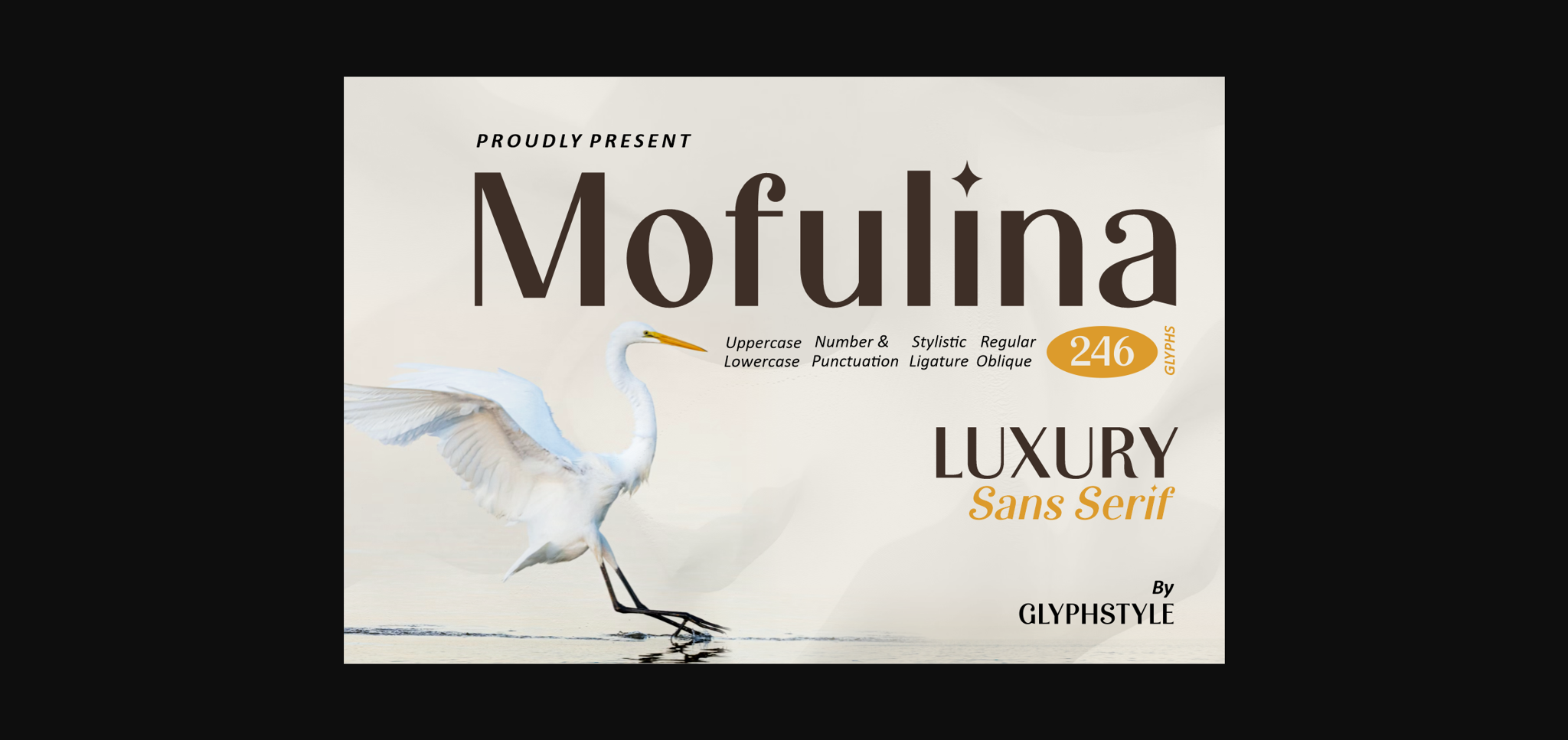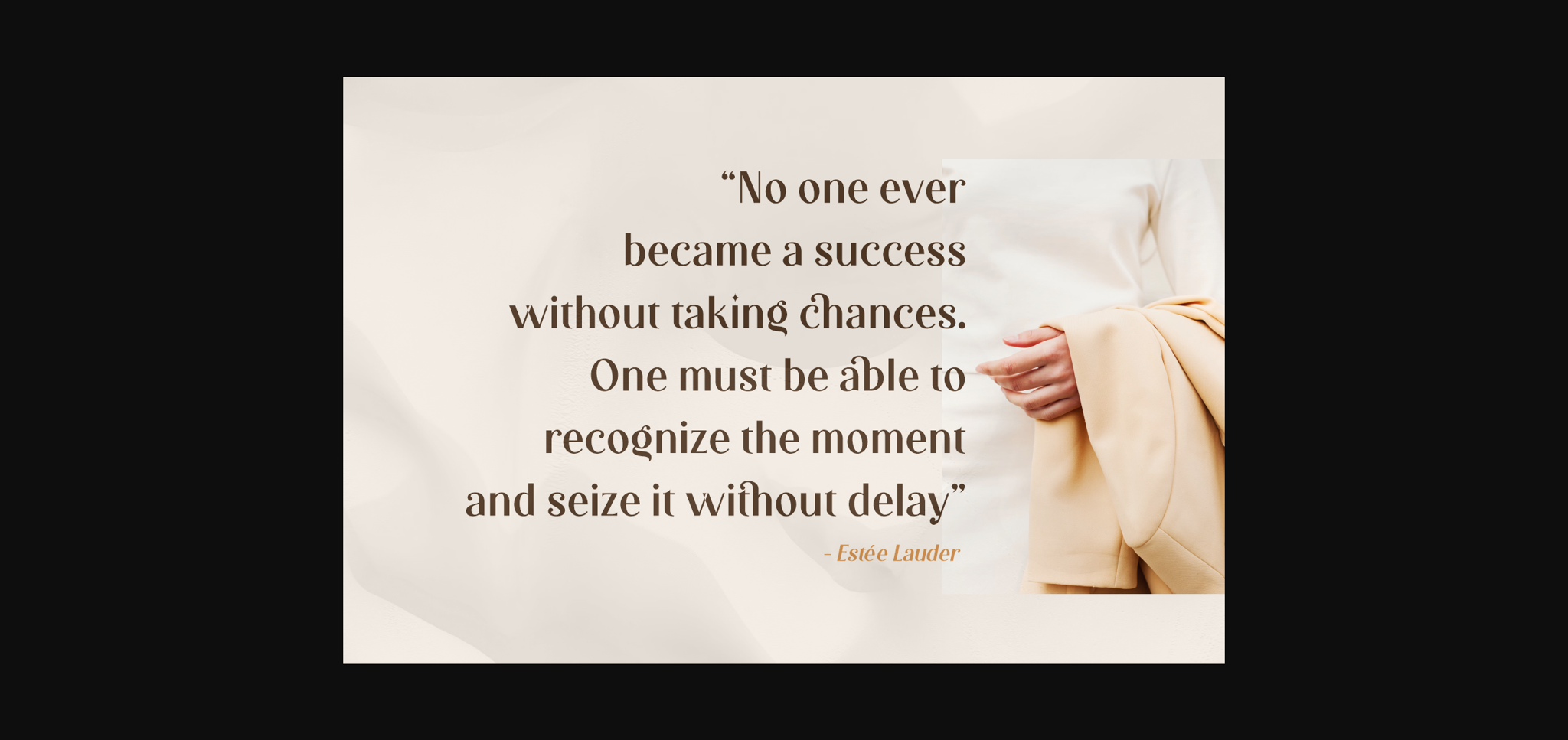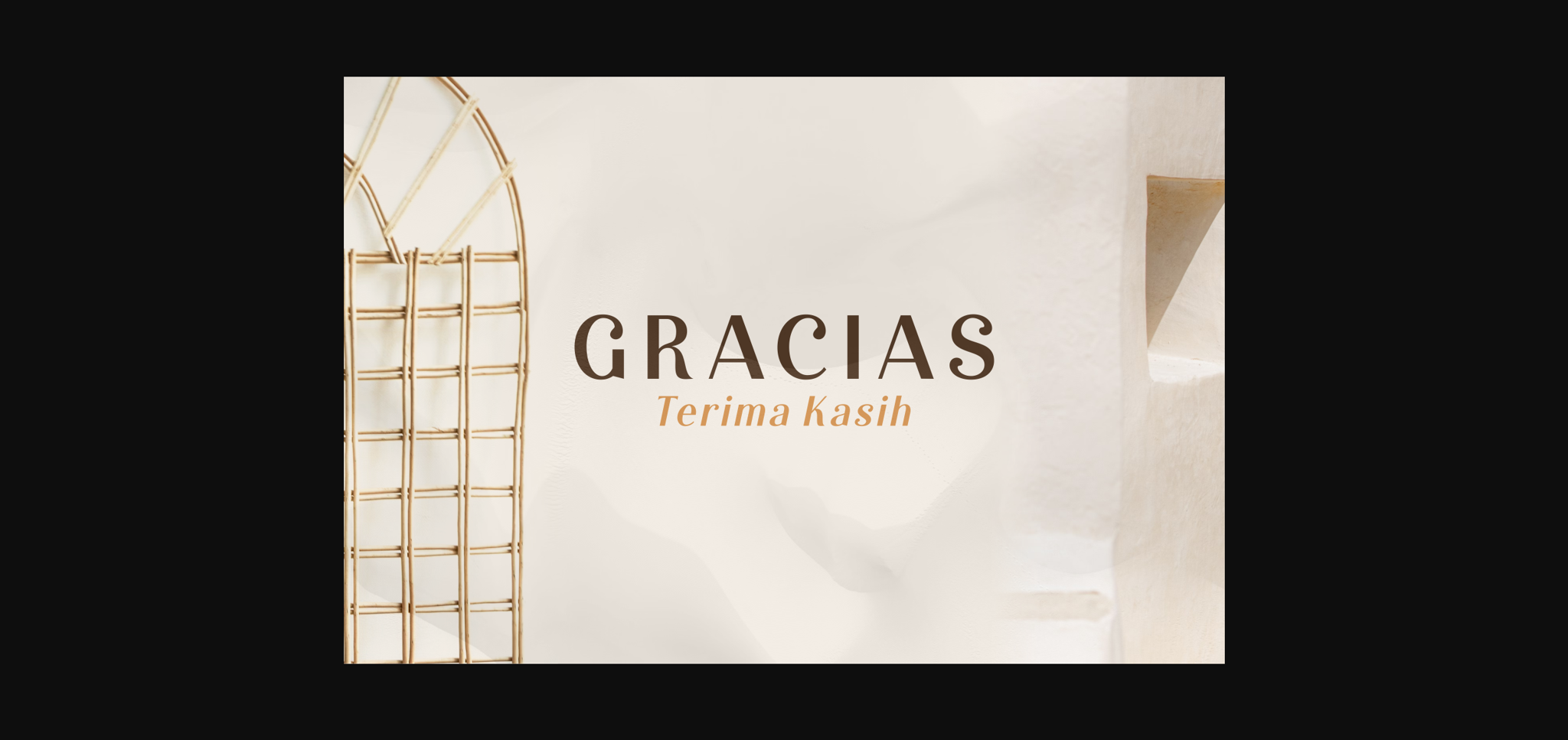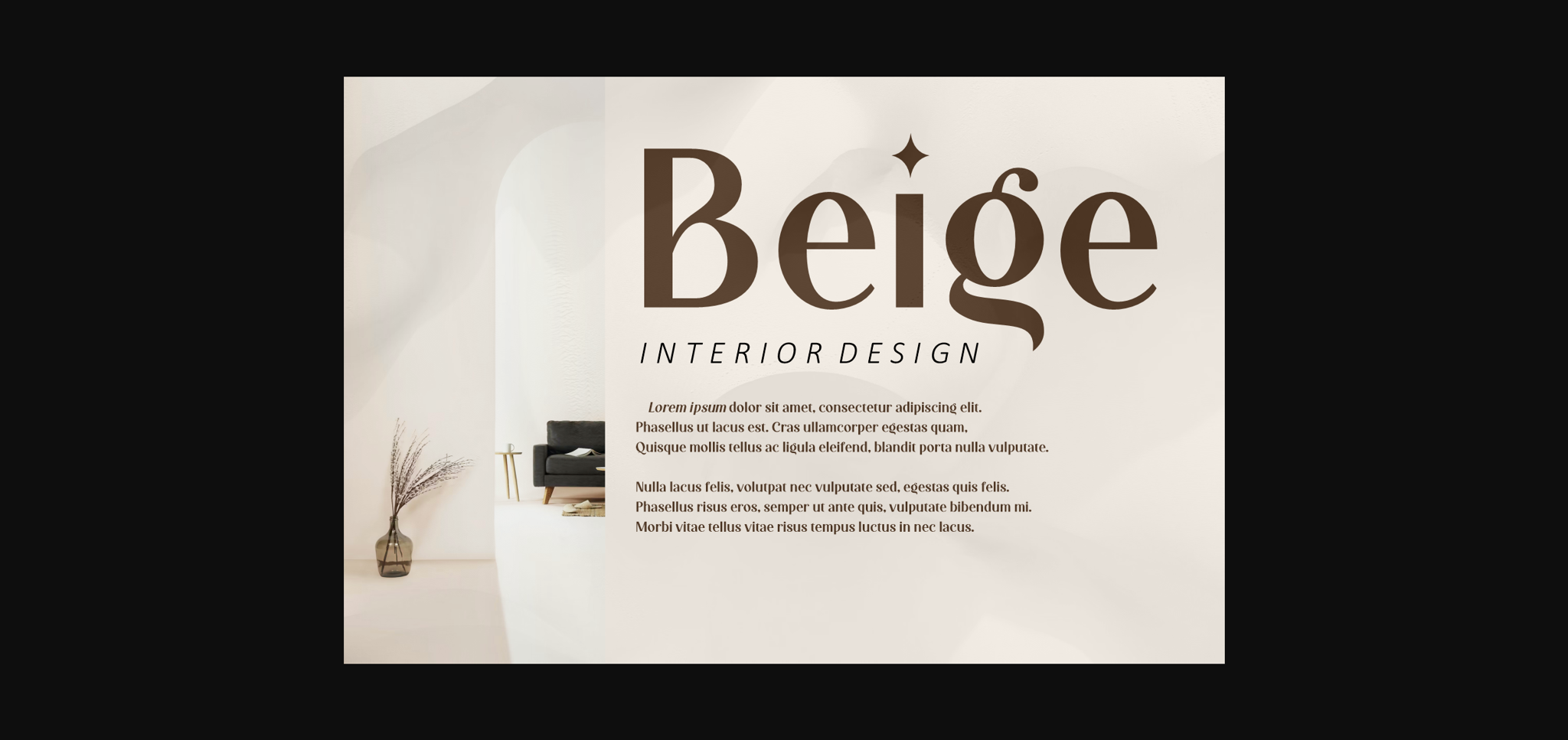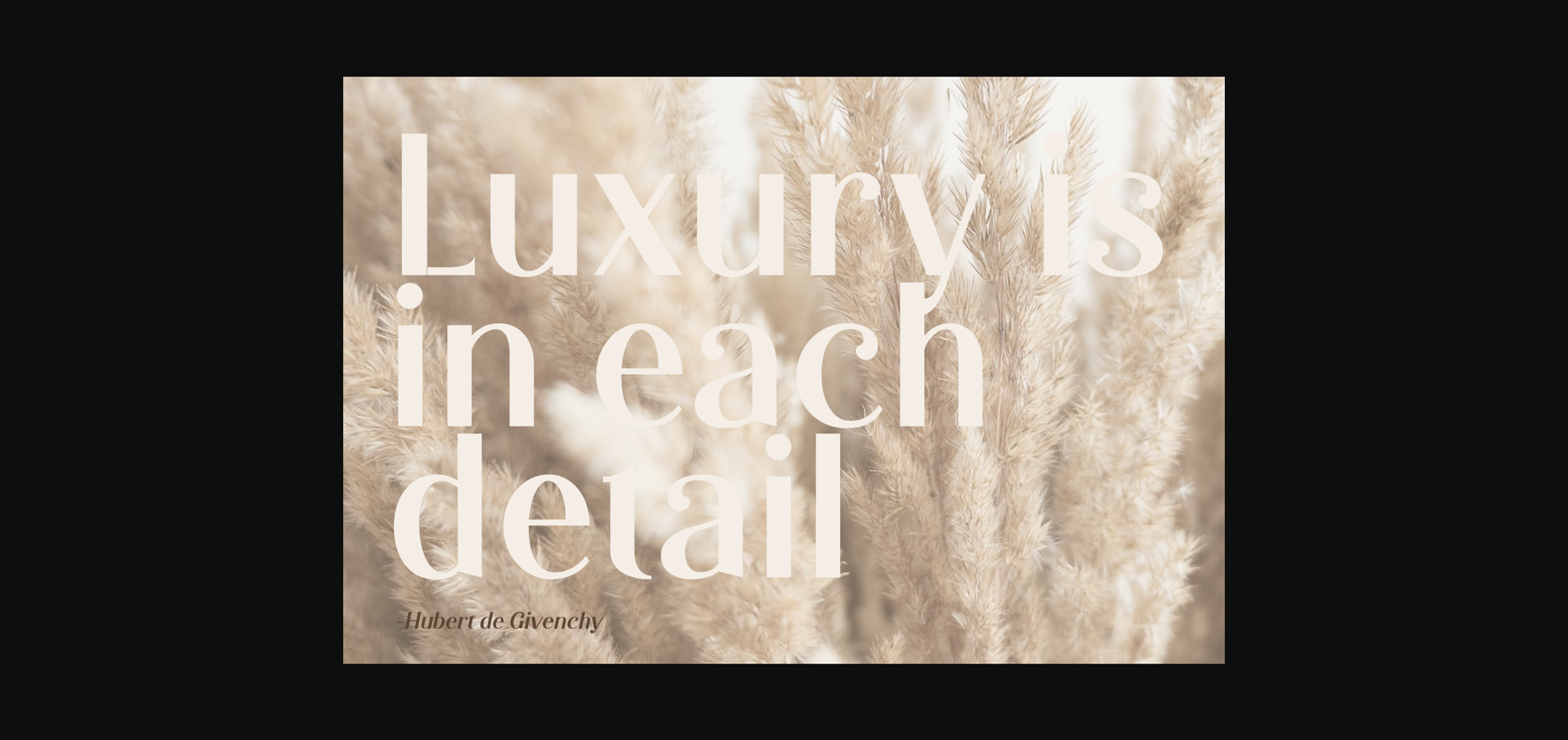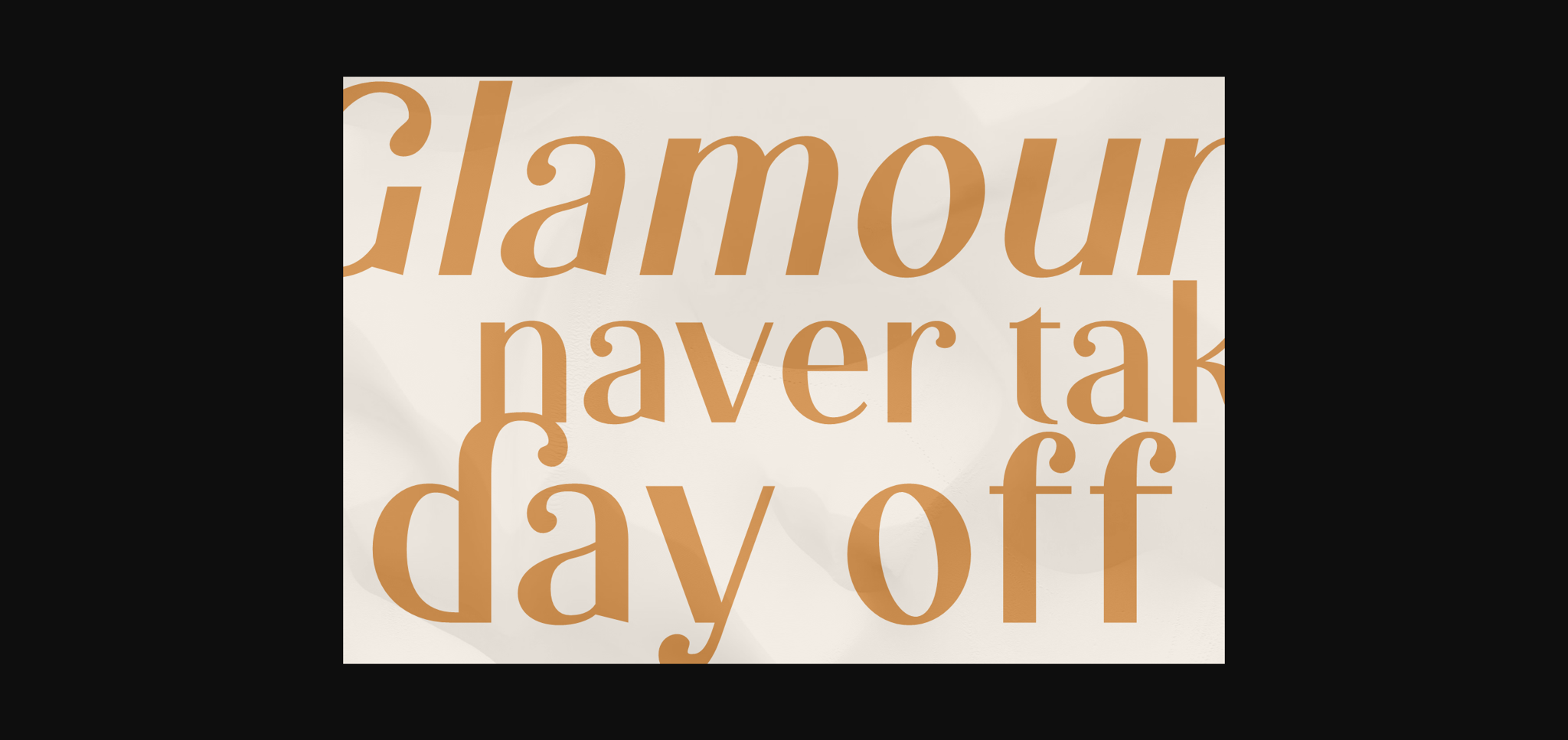
About Mofulina Font
Mofulina is a luxurious and majestic sans-serif display font. Very suitable for logos from luxury brands, etc. There are several alternatives available to beautify letters. Featuring clean and luxurious fonts.
Mofulina is perfect for branding projects, logos, wedding designs, social media posts, advertisements, product packaging, product designs, labels, photography, watermarks, invitations, stationery, and any project that requires a font with Luxury Sans Serif